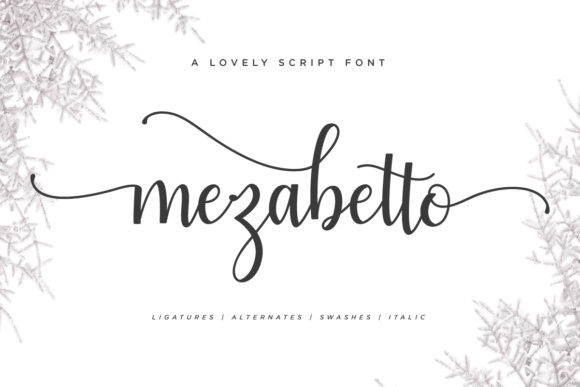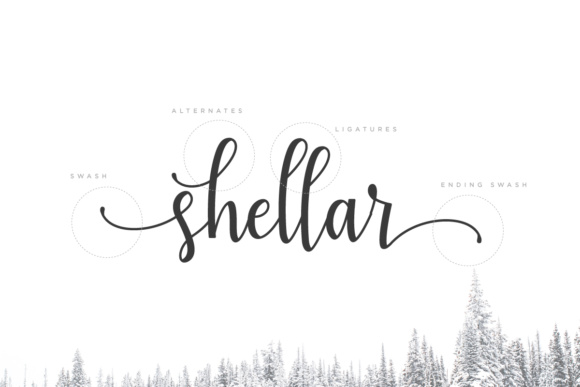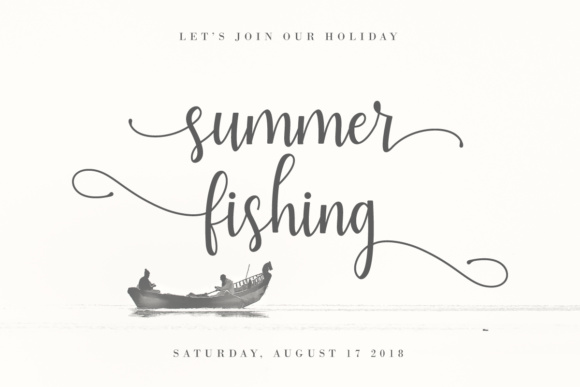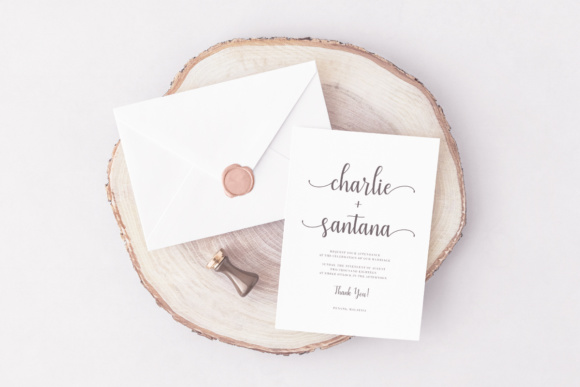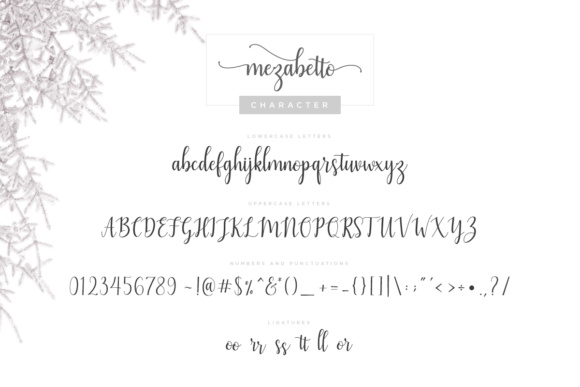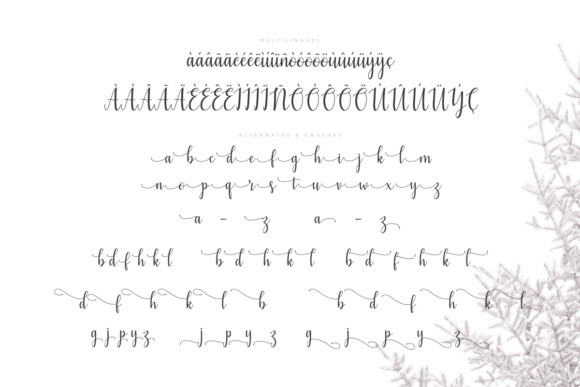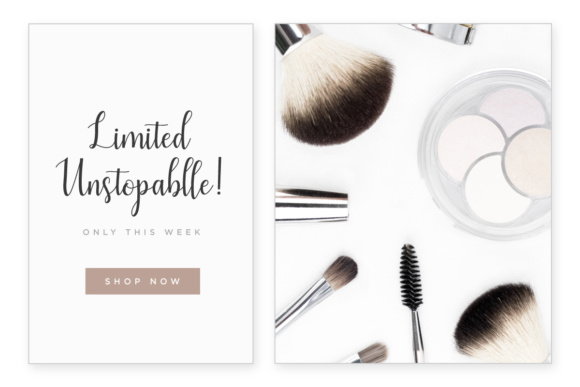
Mezabetto Font
About Mezabetto Font
The Mezabetto is a modern script typeface. It comes in a regular and italic version and is perfect for various designing needs.